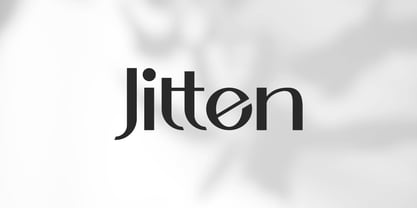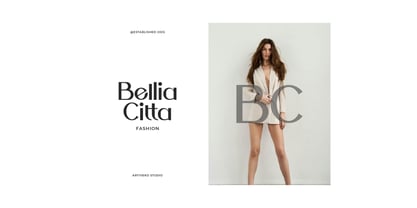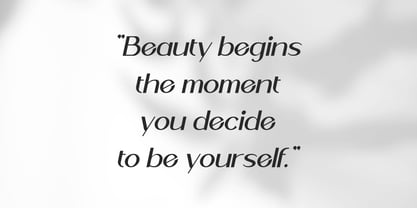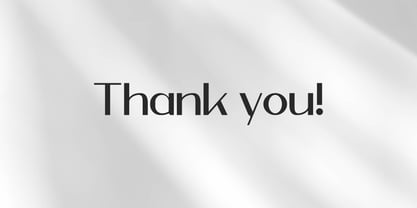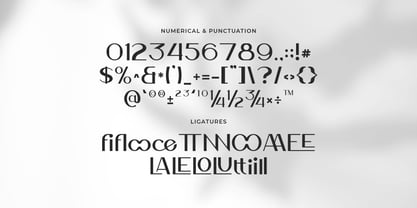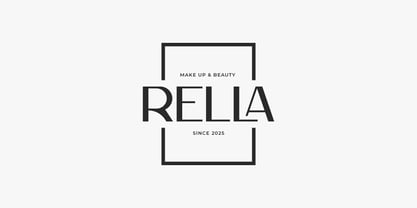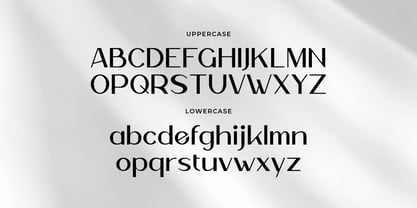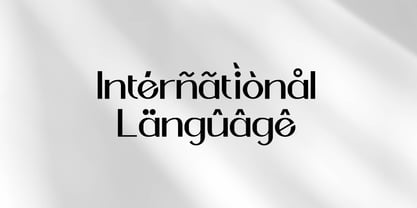
Jitten
por Artiveko
La familia tipográfica Jitten fue diseñada por Iwan Alwan y publicada por Artiveko. Jitten contiene 2 estilos y opciones de paquete familiar. Más información sobre esta familia
Jitten is a clean and modern sans serif font designed with a gentle, feminine touch. Its smooth curves, airy spacing, and subtle elegance make it the perfect choice for lifestyle branding, fashion lookbooks, beauty packaging, social media templates, and wedding-related designs.
Balancing minimalism and warmth, Jitten includes uppercase and lowercase letters, multilingual support, and carefully crafted ligatures and stylistic alternates that enhance its graceful personality. Each character flows with clarity and softness, giving your typography a refined, stylish voice without overpowering the message.
Whether you're building a high-end brand or designing soft, romantic visuals, Jitten adds sophistication and approachability to your work. Let your words feel light, elegant, and effortlessly beautiful — with Jitten, the minimalist sans serif that speaks with grace and intention.